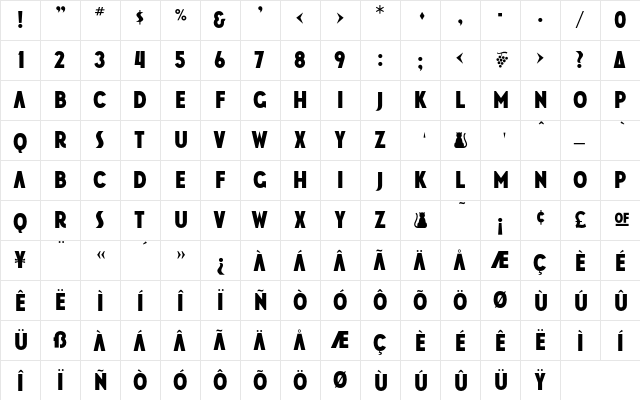
JMPosterSolid Regular
Design Context for JMPosterSolid Typeface
JMPosterSolid offers clean, dependable letterforms without strong stylistic allegiance, making it a practical choice for designers who need flexibility.